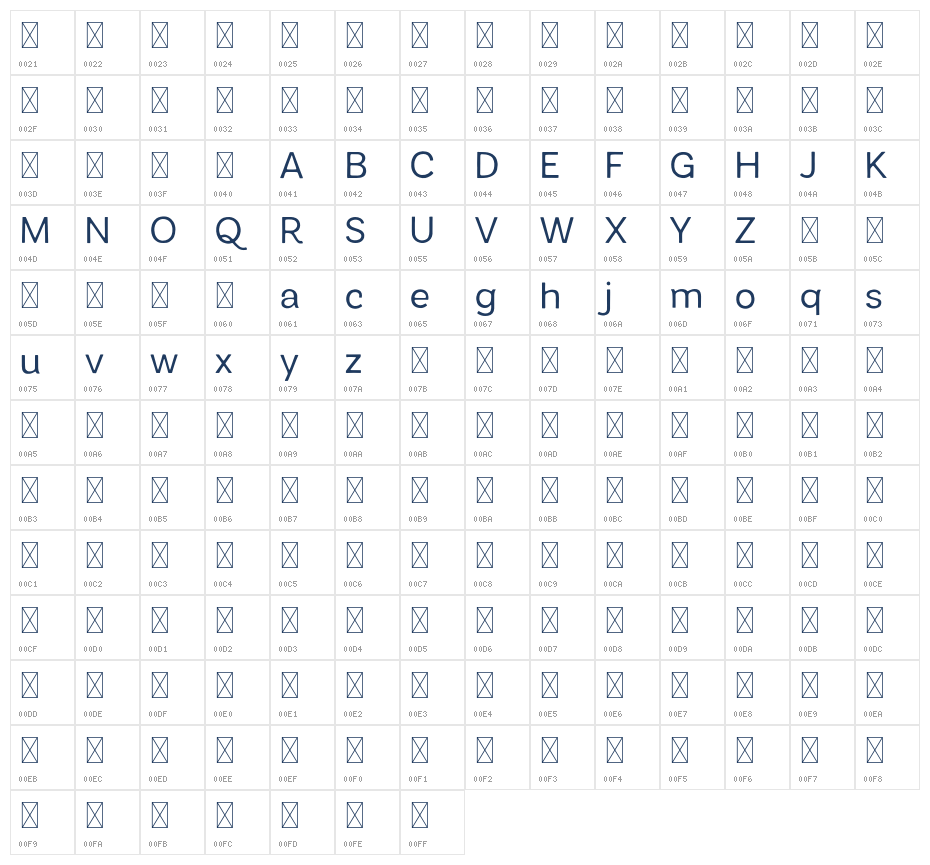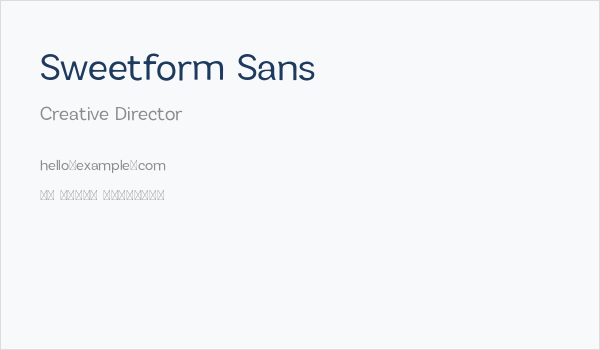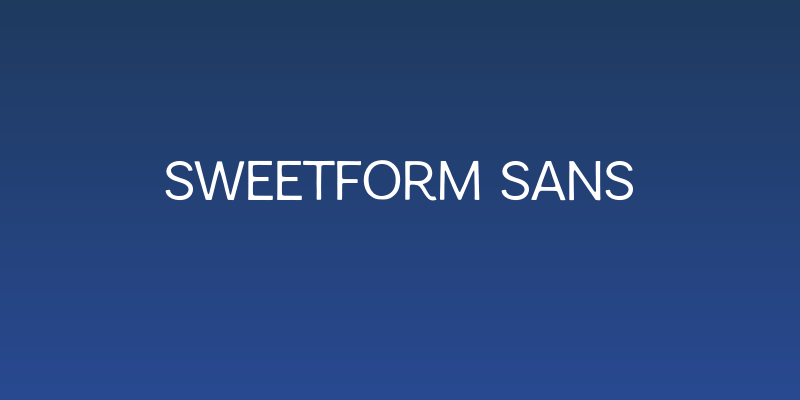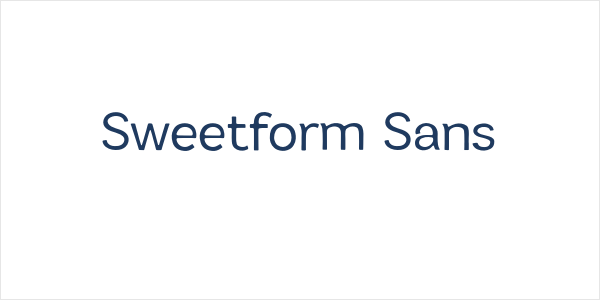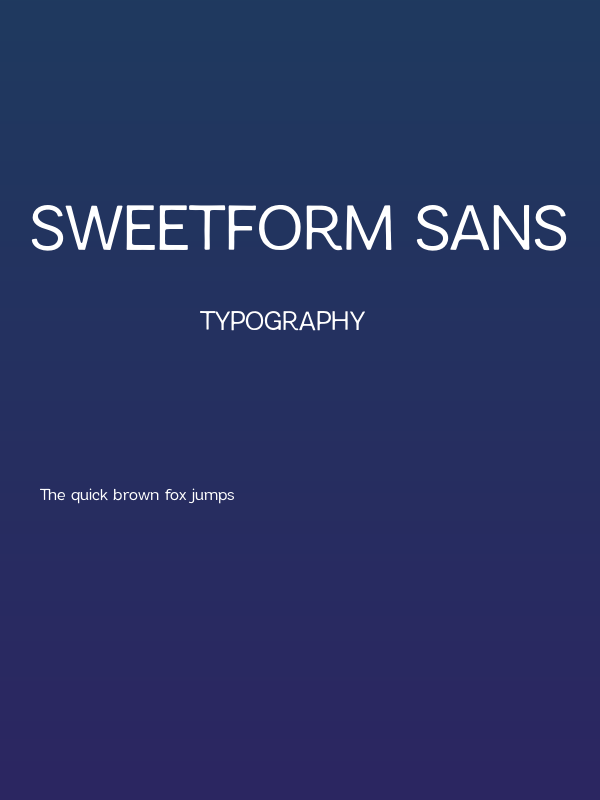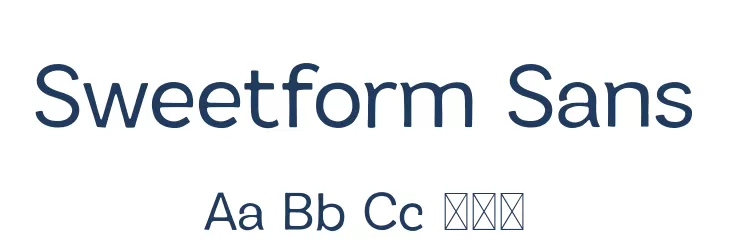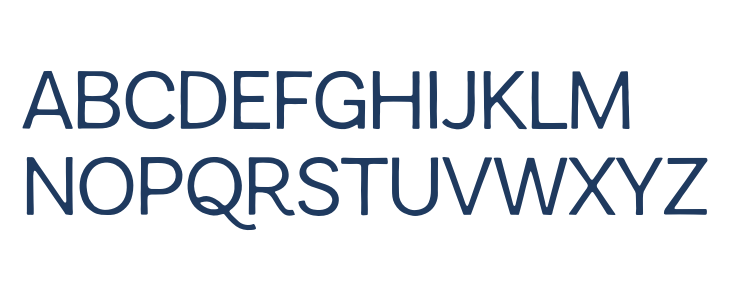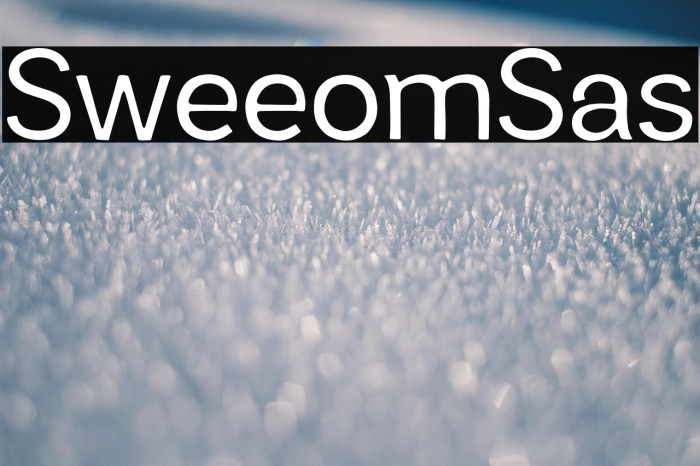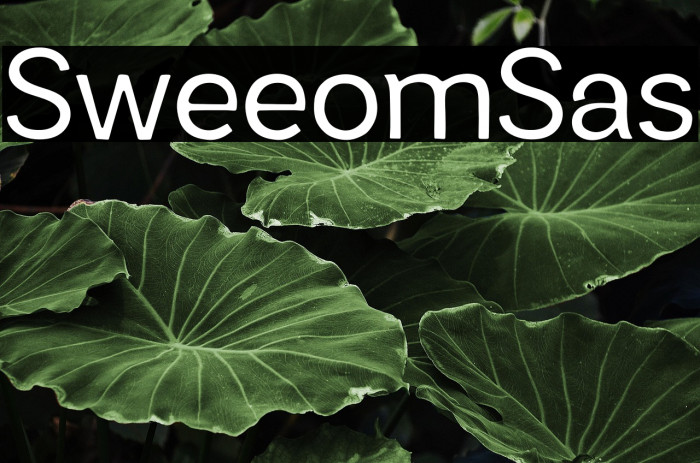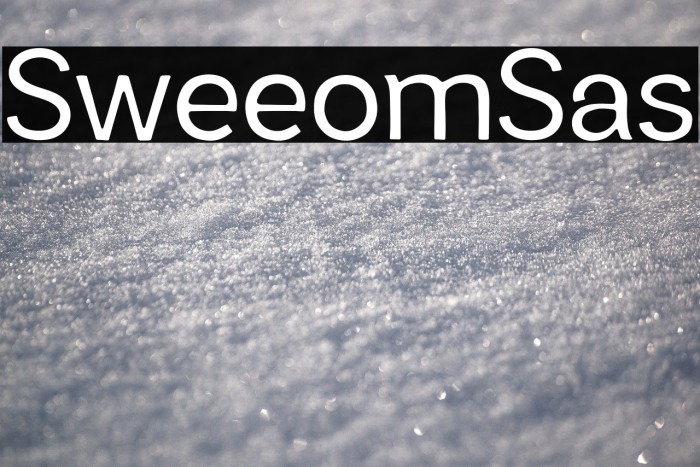
Sweetform Sans Font
Sweetform Sans Description
A clean, modern sans-serif font with rounded edges and uniform stroke width, suitable for digital and print use.
| Overall Style | Modern, Friendly |